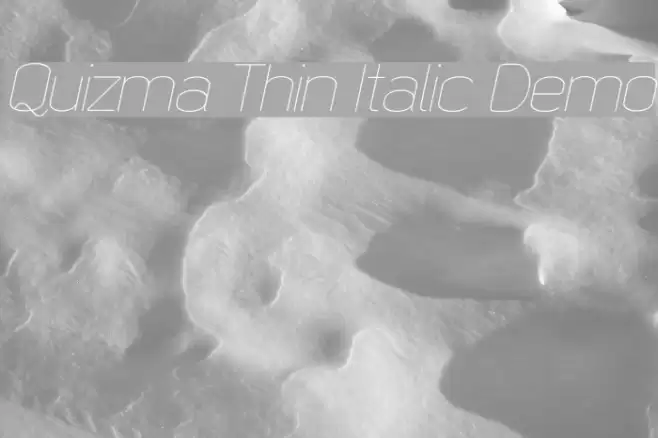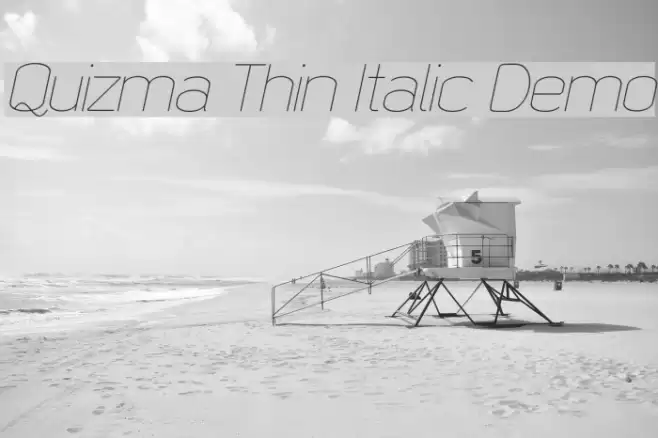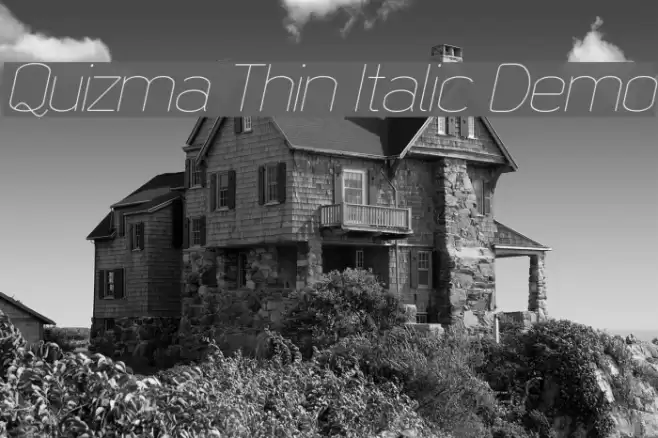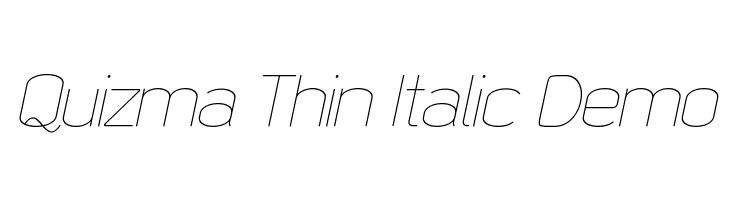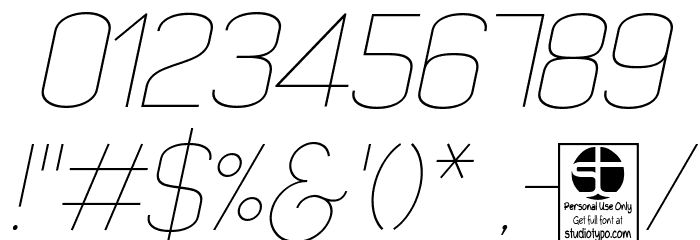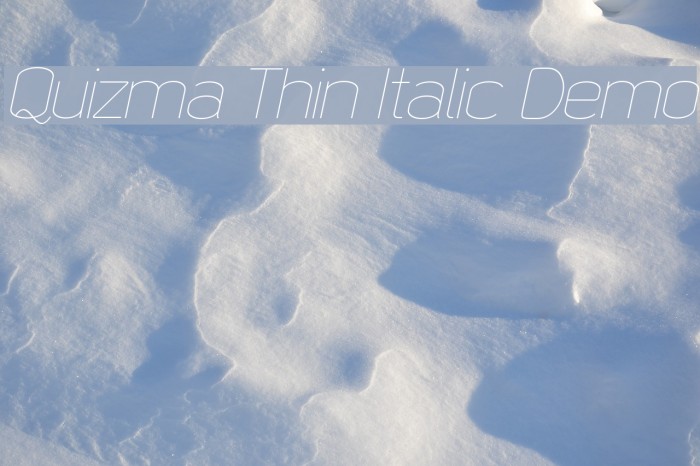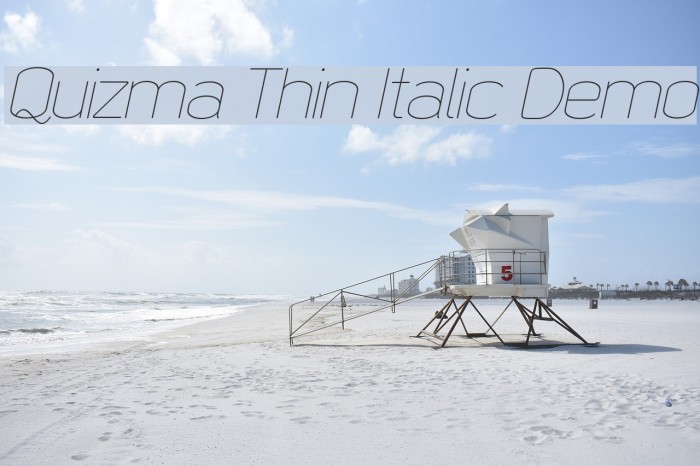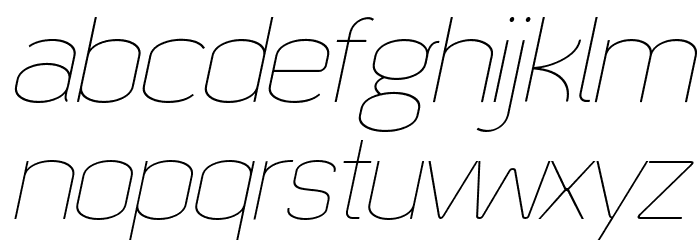
Quizma Thin Italic Demo Font
Quizma Thin Italic Demo Description
This font features a sleek, modern design with a thin, italicized style. The characters are elongated and slightly slanted, giving a sense of motion and elegance. The uppercase and lowercase letters maintain a consistent stroke width, contributing to a clean and minimalist appearance. The numerals and special characters follow the same design principles, ensuring uniformity across all elements. This font's airy and open structure makes it suitable for projects that require a sophisticated and contemporary look.
A sleek, thin, italicized font with a modern and elegant style from Uncategorized fonts.
- Proposed Projects: Ideal for fashion magazines, luxury branding, modern websites, and elegant invitations.